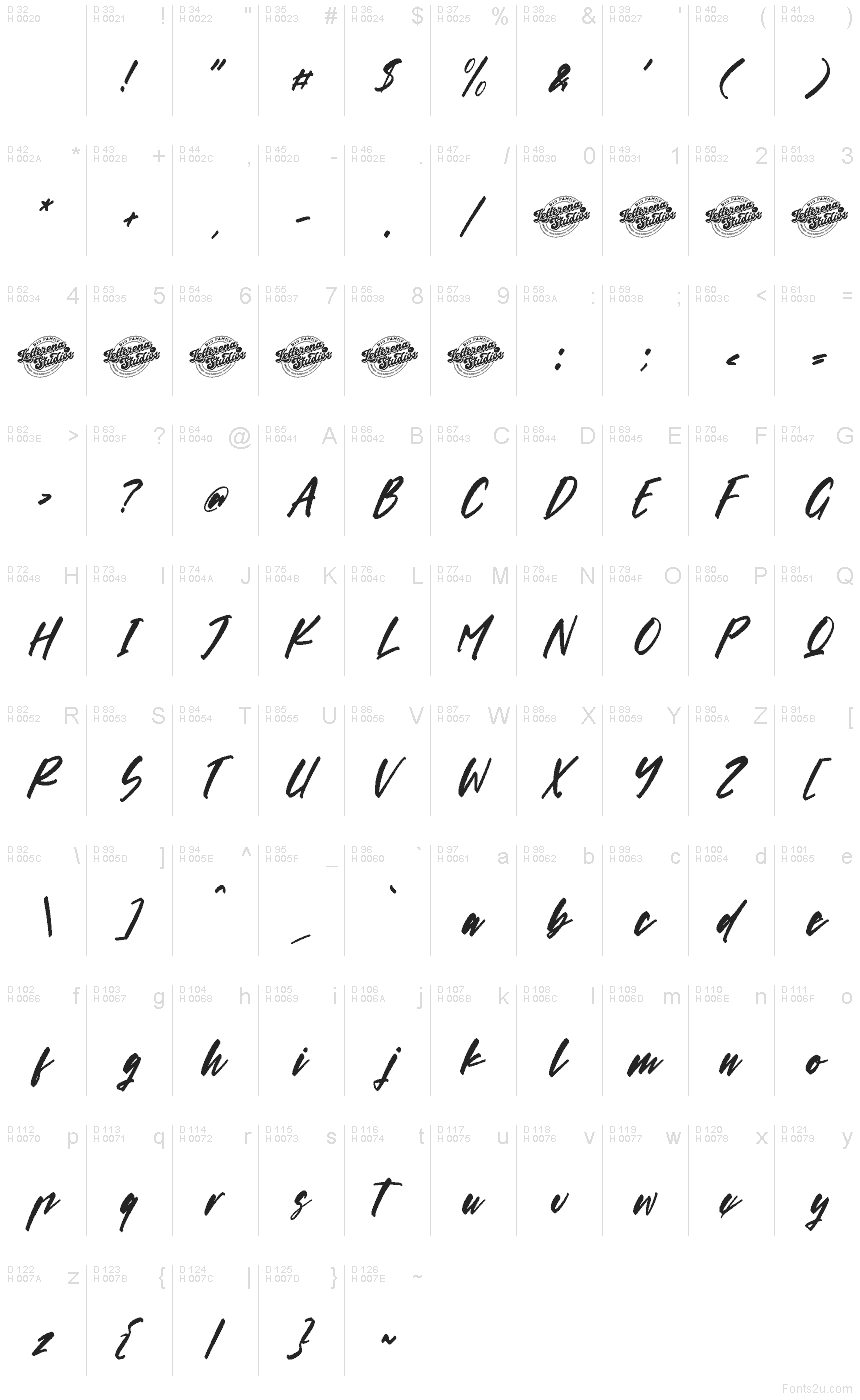
Shadows Highstter DEMO VERSION Italic
Shadows Highstter Italic font by Letterena Studios is a free handwritten condensed font that radiates casual elegance and a natural flow. With a signature style defined by expressive, energetic strokes, the font creates pleasant impressions when used on computer screens or in printed projects alike.
Use it in branding, packaging, product labels/packaging designs, book covers, clothing designs and card designs from business cards to invitation cards. Add it to your websites or social media posts with an aesthetic and contemporary approach. Its uses do not end here; signature projects are also possible with Shadows Highstter Italic’s playful letters.